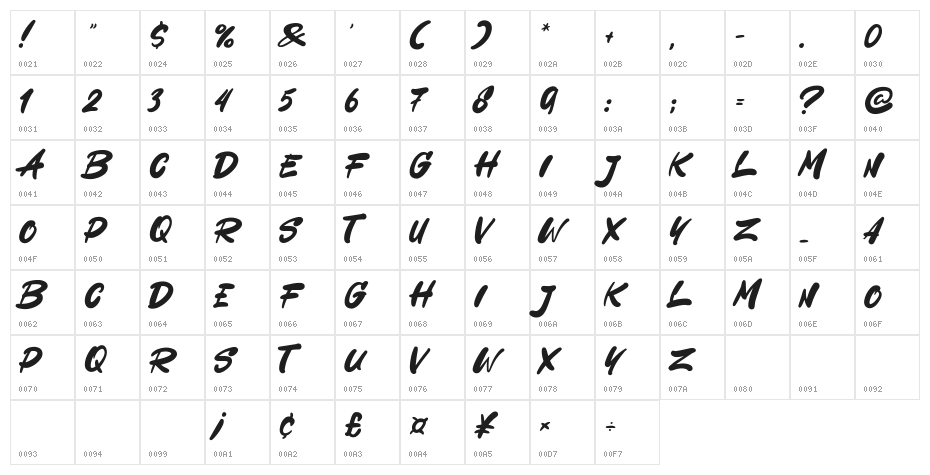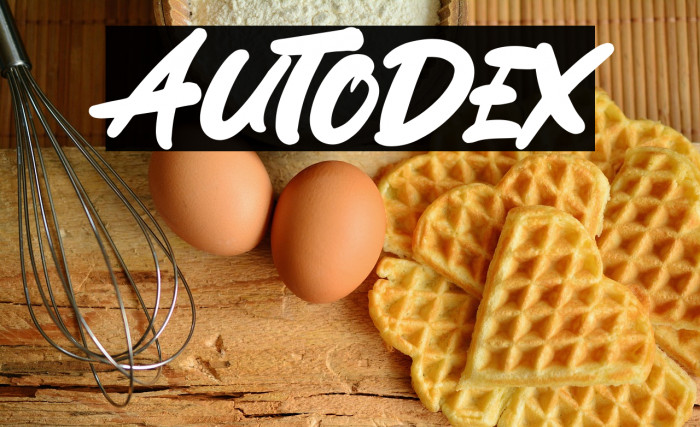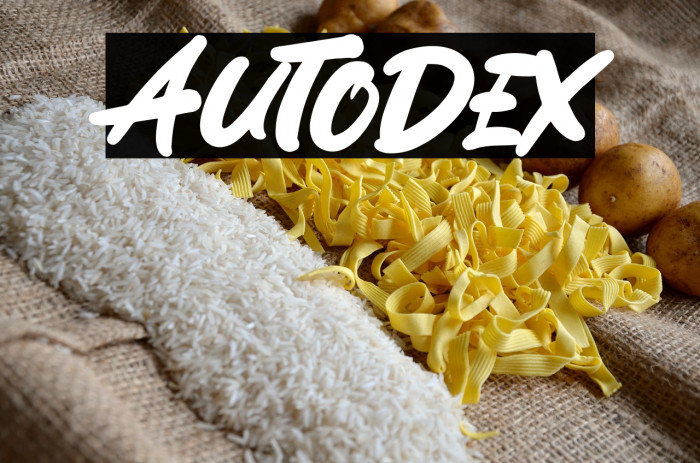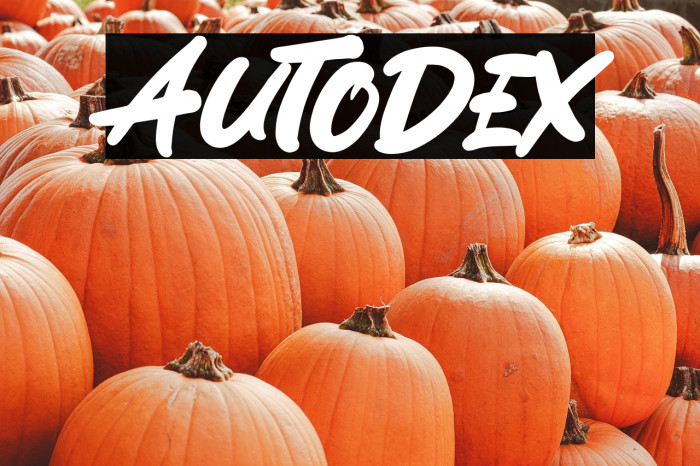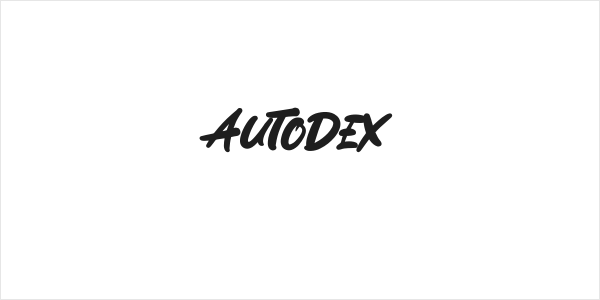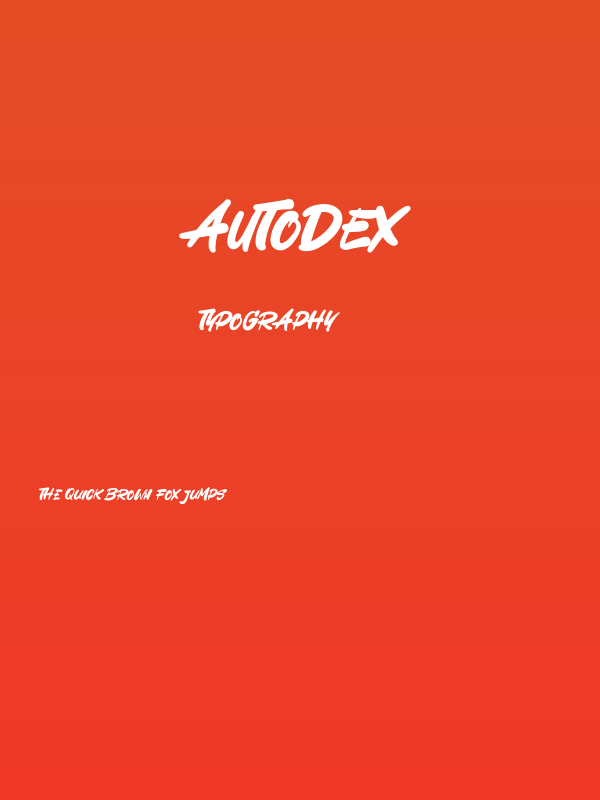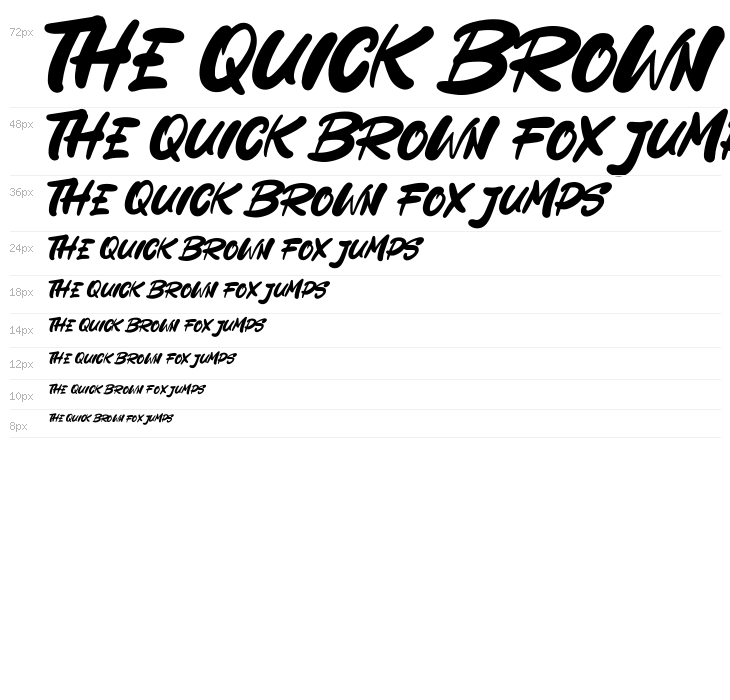
Autodex Font
Autodex Description
This font exudes a bold and dynamic presence, characterized by its thick, flowing strokes that mimic the fluidity of handwriting. The letters are slightly slanted, adding a sense of motion and energy. The uppercase and lowercase characters maintain a consistent style, with rounded edges and smooth curves that enhance readability. The numbers and special characters are equally expressive, maintaining the font's cohesive aesthetic. This font's boldness and unique style make it stand out, perfect for projects that require a touch of personality and flair.
| Use Case | Logos, Headlines, Posters |
| Proposed Projects | Ideal for branding, posters, and creative projects that require a personal touch. |